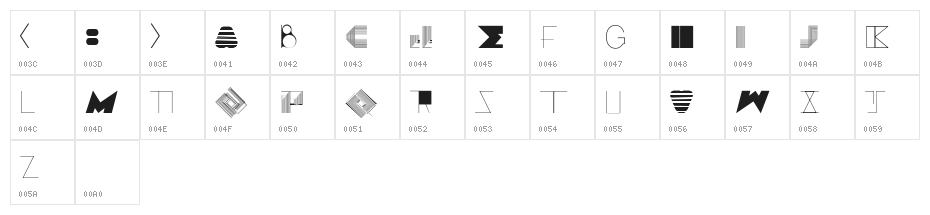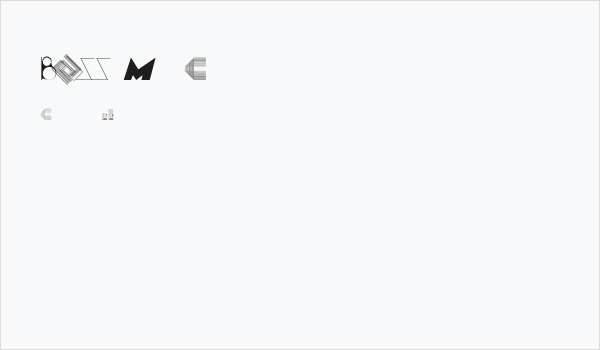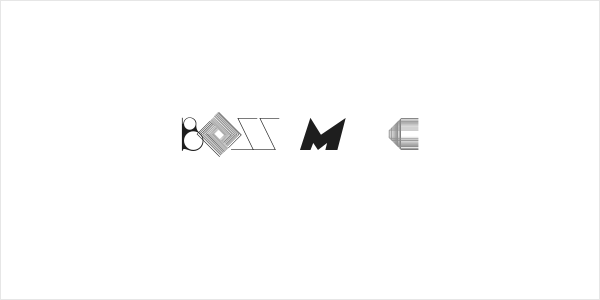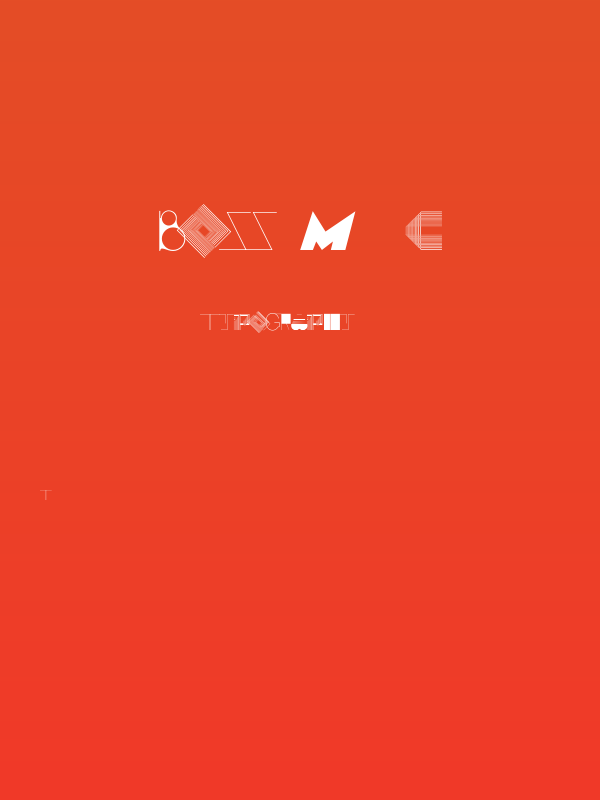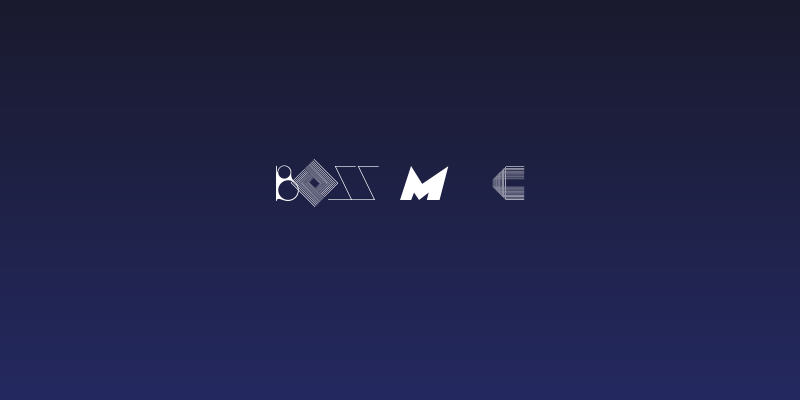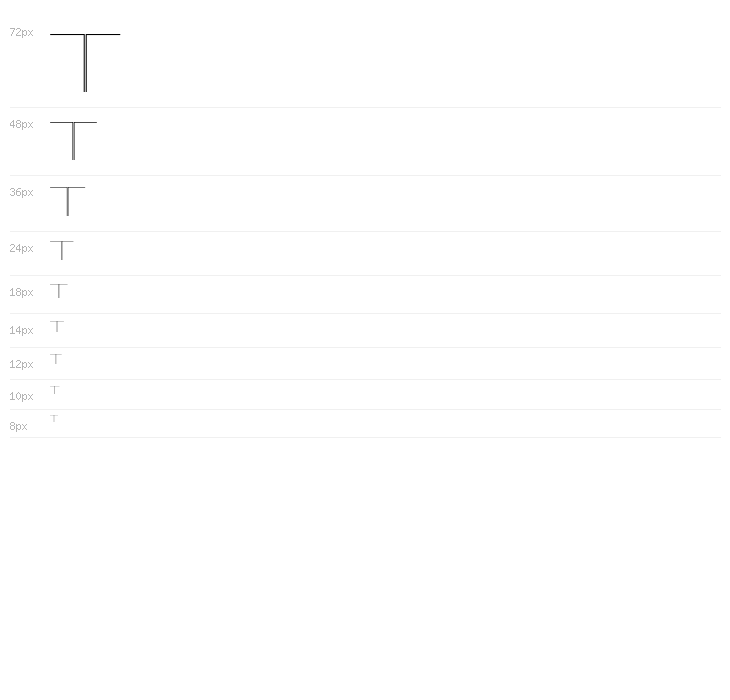
BOSS M C Font
BOSS M C Description
This font features a highly decorative and geometric style, characterized by its use of bold lines and intricate patterns. Each letter is uniquely designed with a combination of solid fills and line work, creating a striking visual impact. The uppercase letters exhibit a variety of shapes, some with filled areas and others with open, linear designs, giving the font a dynamic and modern appearance. The overall aesthetic is bold and artistic, making it ideal for creative and eye-catching designs.
| Proposed Projects | Ideal for poster designs, album covers, branding projects, and any creative work that requires a bold and artistic touch. |